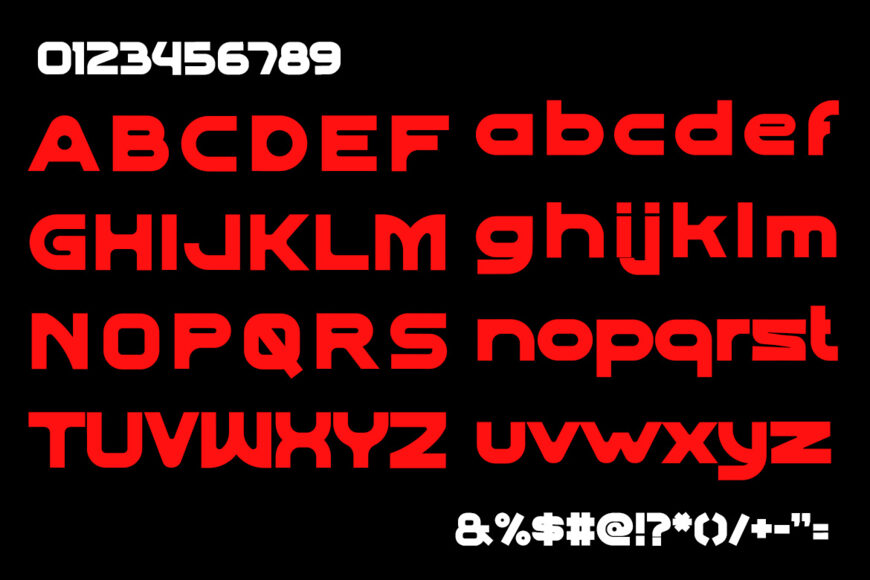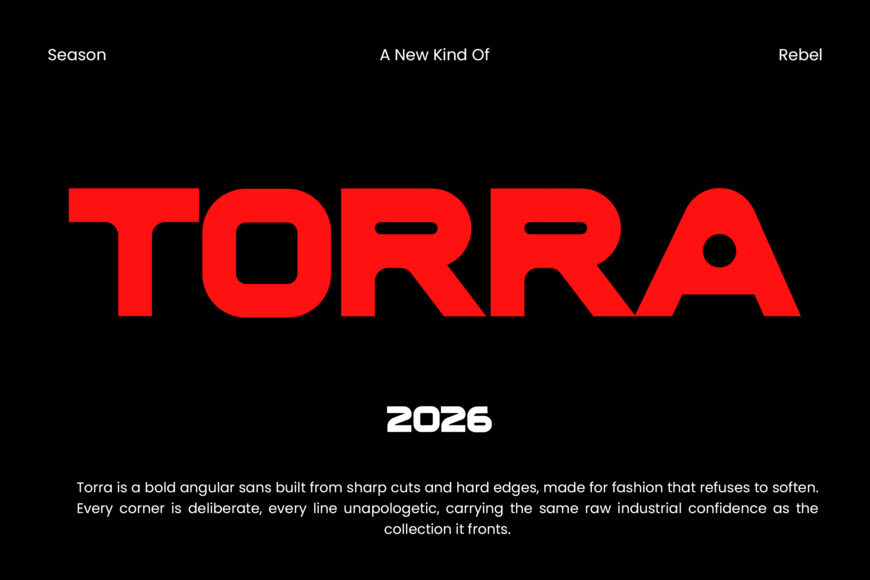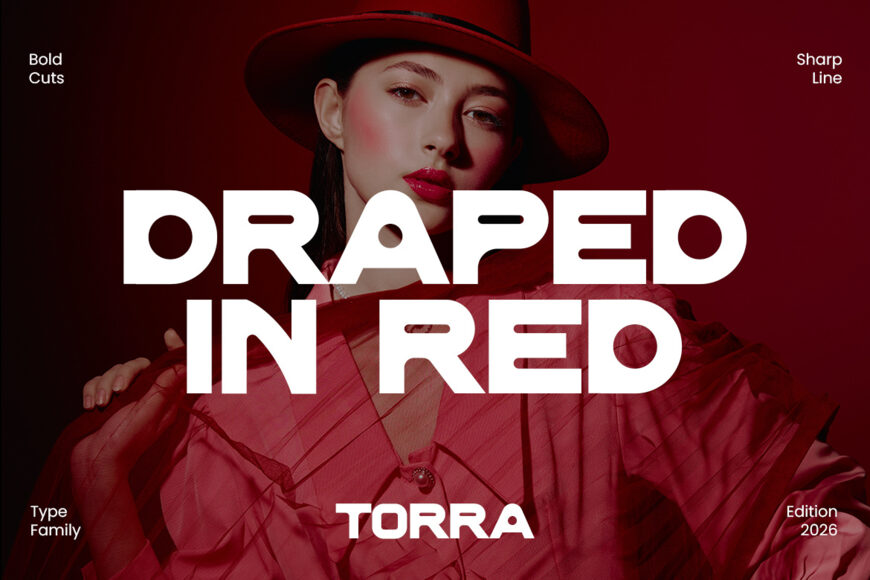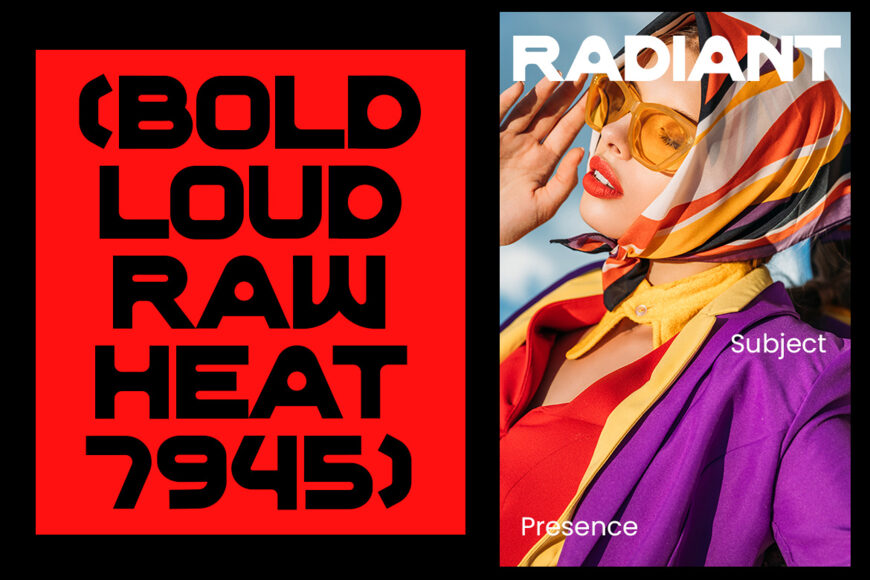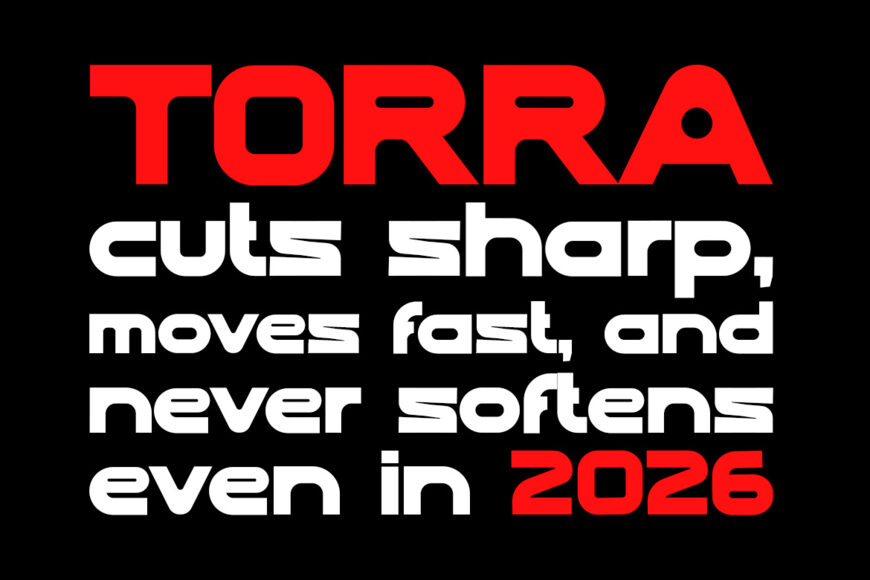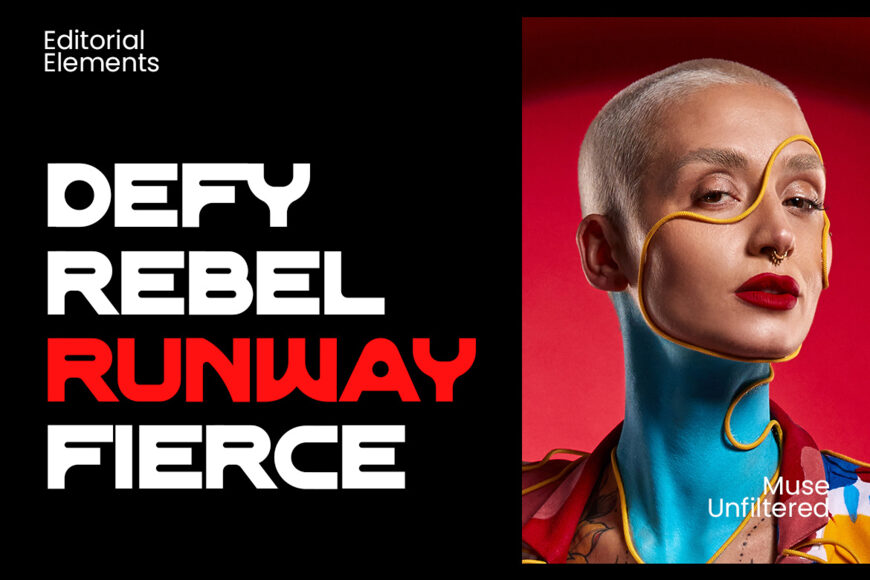
Torra Font
Torra is a bold, futuristic typeface defined by geometric forms, compact proportions, and a distinctly digital feel. Its heavy characters create immediate impact, while rounded corners and clean structure maintain a modern appearance.
Strong contrast makes it ideal for headlines, logos, campaign titles, and editorial designs. Torra suits fashion, music, technology, gaming, and contemporary branding, transforming simple words into striking visual elements.